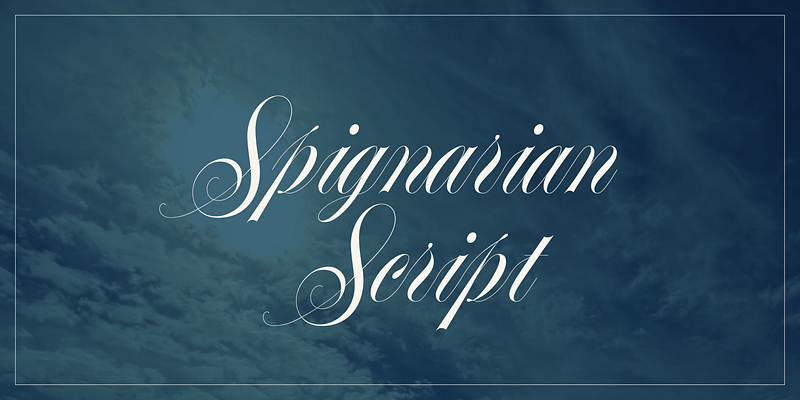
Spignarian Script Font Free Download is a beautifully crafted handwritten script font that brings elegance, warmth, and a personal touch to any design. With its flowing curves and smooth strokes, this font is perfect for wedding invitations, branding, logos, product packaging, social media graphics, and more.
Designed to emulate natural handwriting with a sophisticated flair, Spignarian Script stands out with its graceful letterforms and artistic flair. It adds a romantic and luxurious feel to your text, making it a go-to choice for creative professionals looking to infuse their work with personality and charm.
Each character is carefully designed to maintain visual harmony and legibility, whether used in short phrases, headlines, or decorative elements. The font also supports a variety of stylistic alternates and ligatures, allowing for even more customization and unique expression in your designs.
Whether you're designing for a boutique brand, crafting social media content, or creating elegant print materials, Spignarian Script brings a touch of hand-drawn beauty that turns ordinary words into standout visuals.